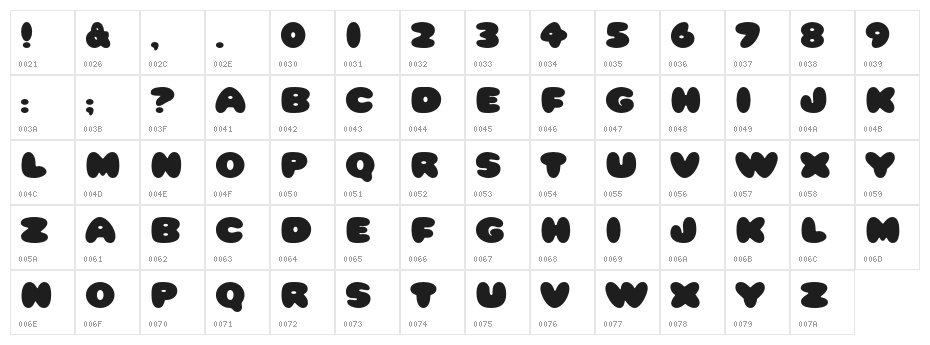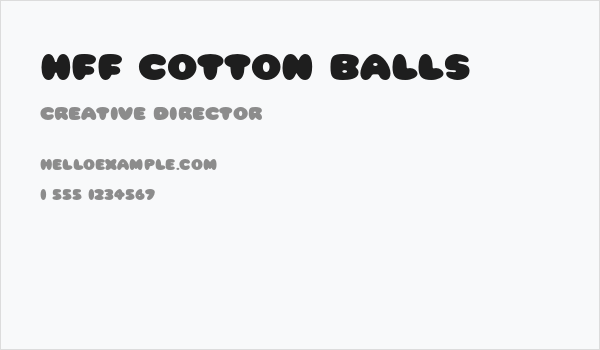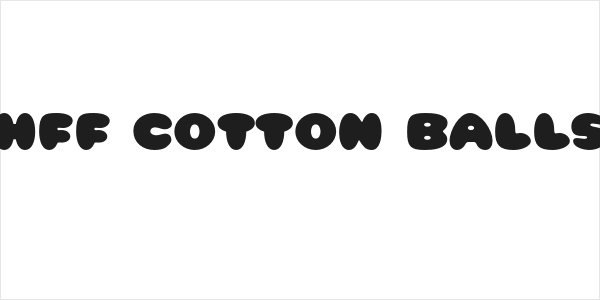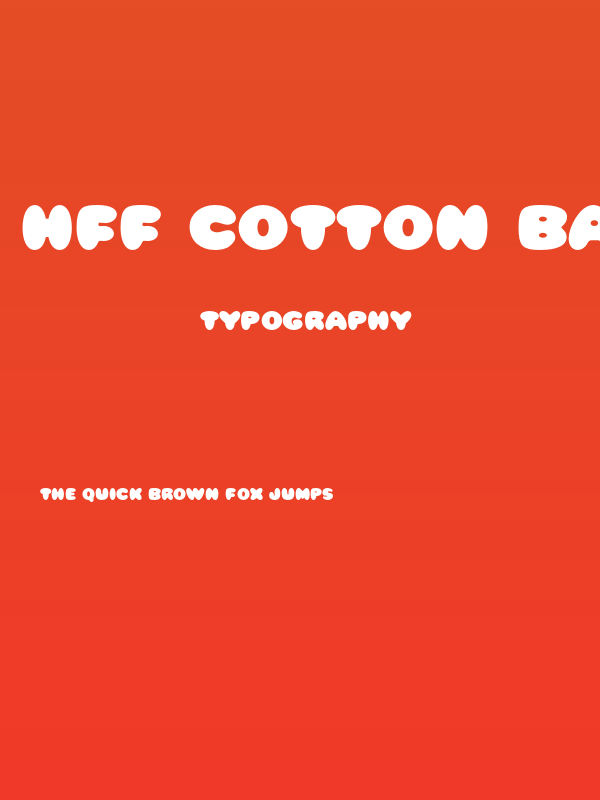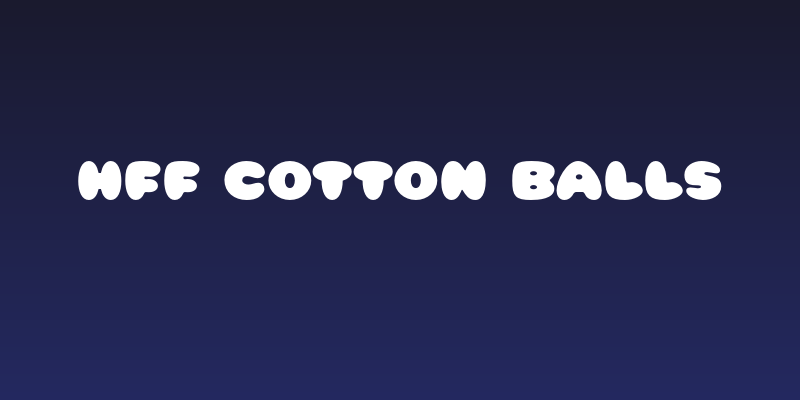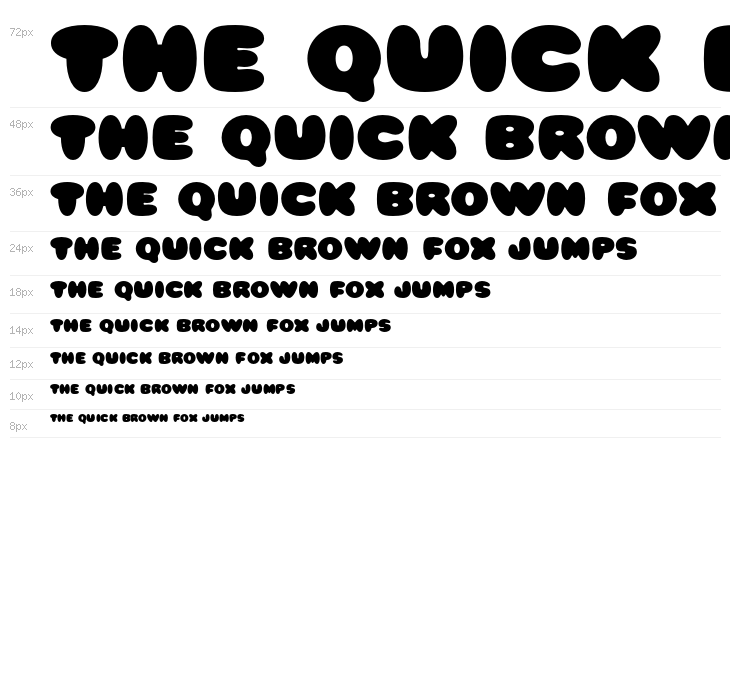
HFF Cotton Balls Font
HFF Cotton Balls Description
This playful and bold font features rounded, bubble-like characters that exude a sense of fun and whimsy. The letters are thick and have a uniform stroke width, creating a cohesive and visually striking appearance. The overall design is reminiscent of cartoon or comic styles, making it ideal for projects that require a lighthearted and approachable feel. The characters are evenly spaced, contributing to a balanced and harmonious look. This font is particularly suitable for children's materials, party invitations, or any creative project that aims to capture attention with its bold and cheerful aesthetic.
| Overall Style | Playful, Fun, Whimsical |
| Proposed Projects | Ideal for children's books, party invitations, playful branding, and comic-style graphics. |